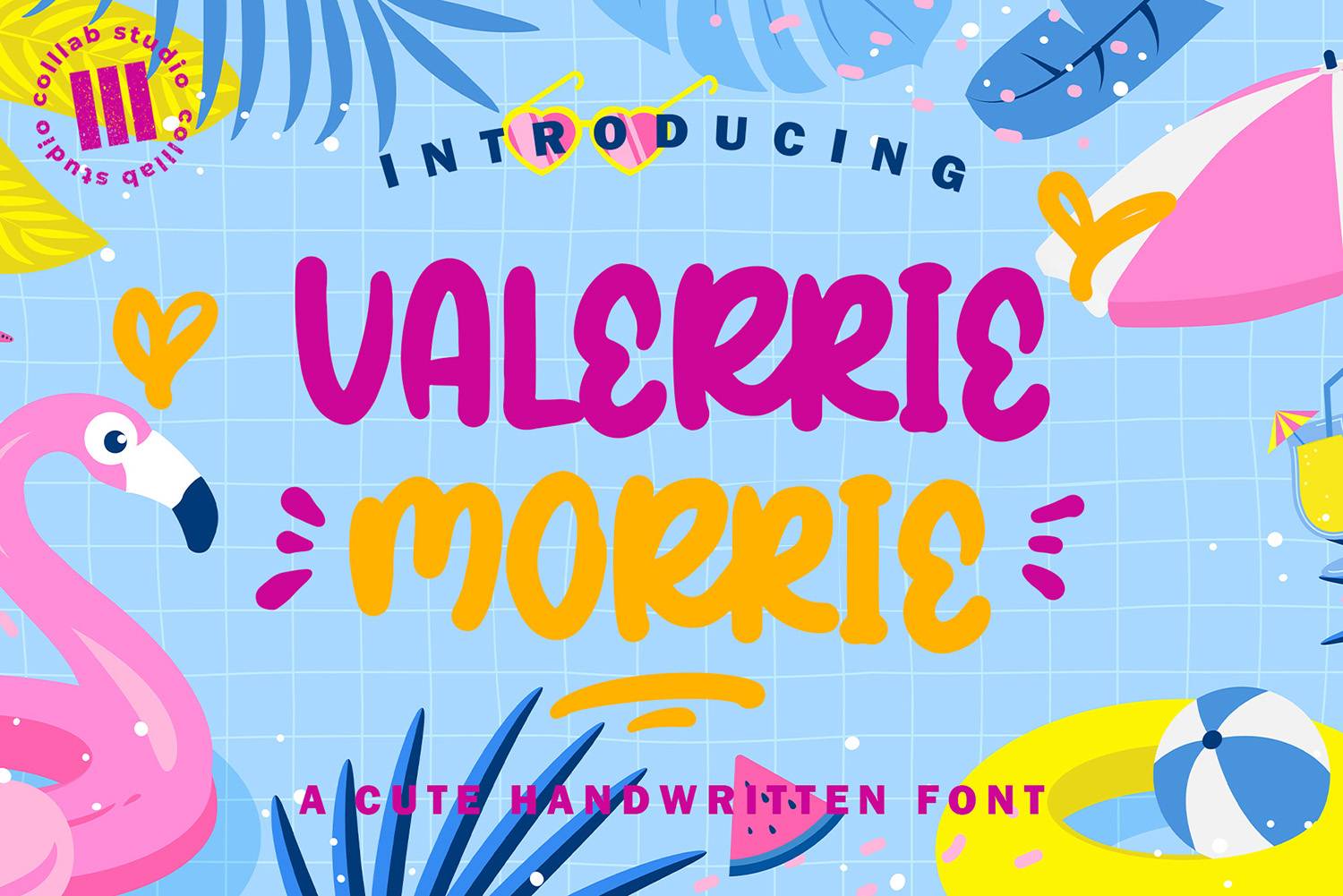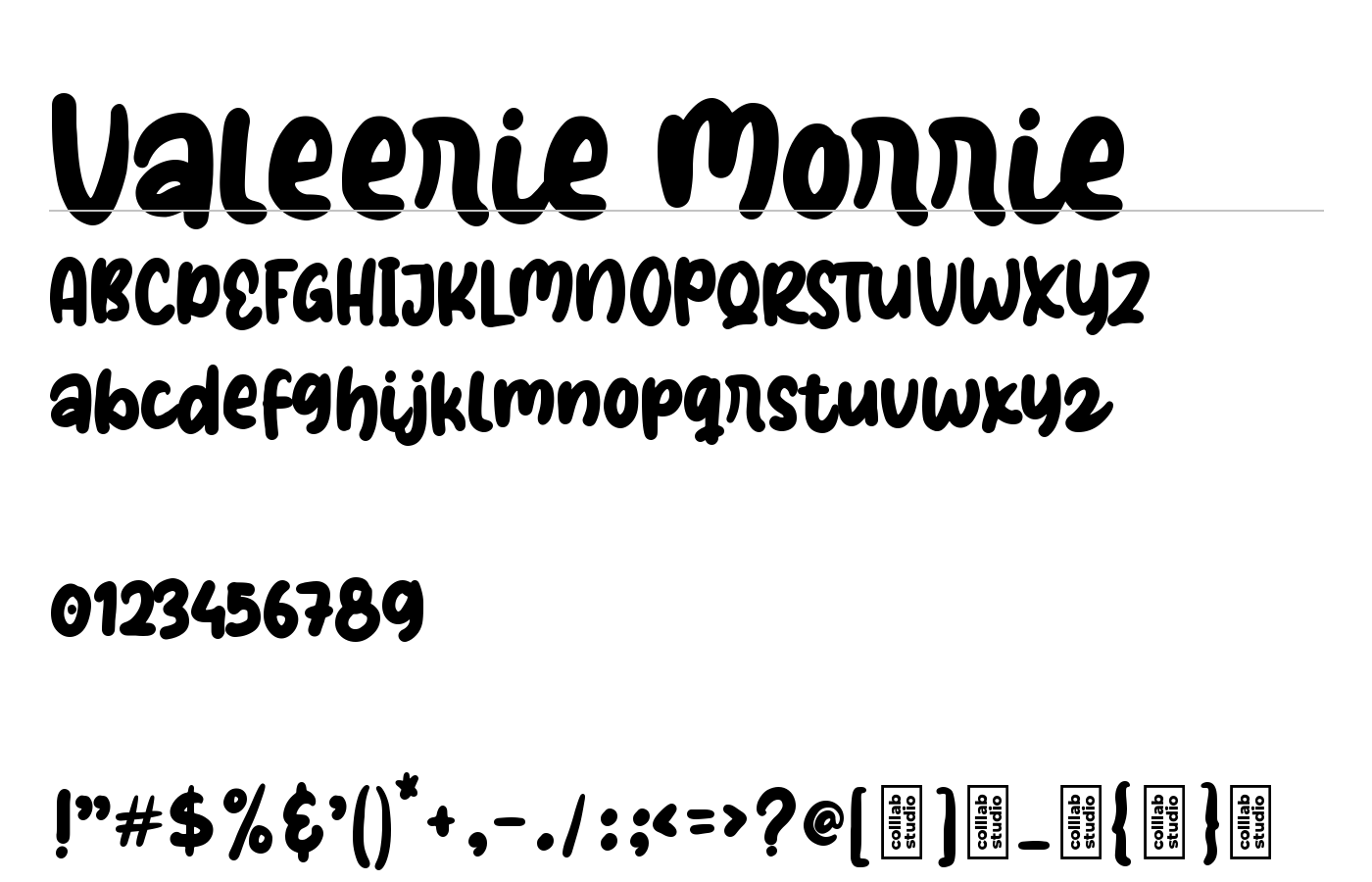
Valeerie Morrie is a playful and bold sans serif font with a hand-drawn, rounded style that brings warmth and friendliness to any design. Its consistent stroke weight and slightly condensed letterforms make it highly readable while maintaining a casual, approachable personality perfect for creative projects, children’s products, or informal branding. This font works best in logos, headlines, and packaging where a fun, upbeat vibe is desired.
Valeerie Morrie Font
About Valeerie Morrie Font
| Font family | Valeerie Morrie Font |
| Designer | Colllab Studio |